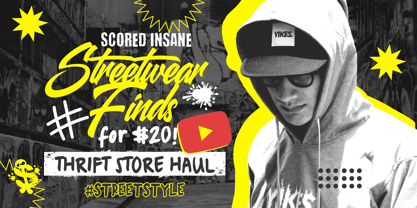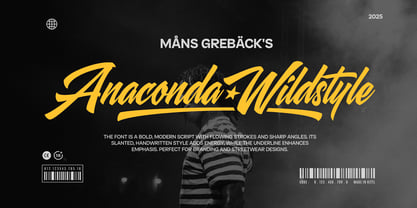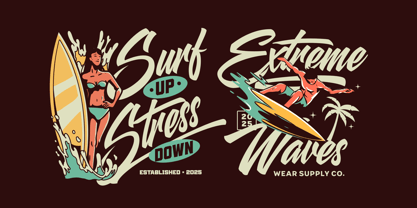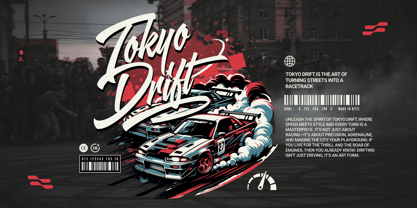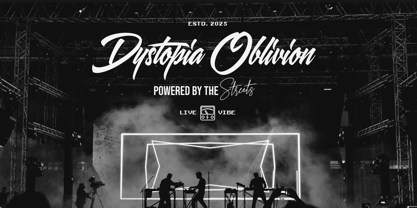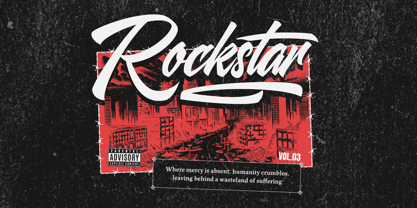
Anaconda Wildstyle
by Mans Greback
The Anaconda Wildstyle Font Family was designed by Måns Grebäck and published by Mans Greback. Anaconda Wildstyle contains 6 styles and family package options.
Anaconda Wildstyle is a typeface with unbridled energy, evoking a sense of freedom and bold self-expression.
This serpentine lettering has a striking, unrestrained design and flows and curves with a wild spirit. Anaconda Wildstyle is perfect for everything from edgy clothing branding to unique skate park posters.
The font is built with advanced OpenType functionality and guaranteed top-notch quality, containing stylistic and contextual alternates, ligatures and more automatic and manual features; all to give you full control and customizability.
It has extensive lingual support, covering all Latin-based languages, from North Europa to South Africa, from America to South-East Asia. It contains all characters and symbols you'll ever need, including all punctuation and numbers.
Anaconda Wildstyle will add just that right amount of edge and distinctiveness that you are looking for, letting you create standout designs with a personal feel. Designed by Mans Greback.